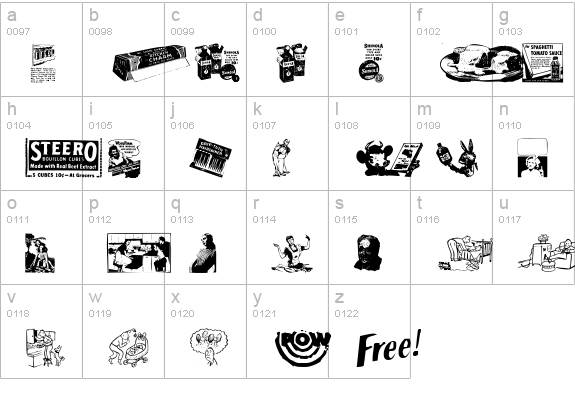
Old Time Ad Dings One Font Details
Old Time Ad Dings One font is a charming and nostalgic typeface that harkens back to the golden age of advertising. With its vintage-inspired design and intricate details, this font is perfect for adding a touch of old-fashioned flair to your projects. Featuring a variety of decorative elements such as borders, ornaments, and symbols, Old Time Ad Dings One font is versatile and can be used to create eye-catching headlines, logos, and more. Best of all, Old Time Ad Dings One font is completely free to download at FontsMarket.com. Whether you're a designer looking to add a retro touch to your work or simply a fan of vintage aesthetics, this font is sure to delight. Download Old Time Ad Dings One font today and bring a touch of nostalgia to your designs.